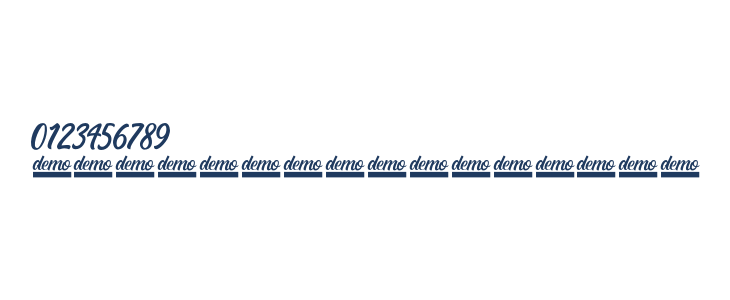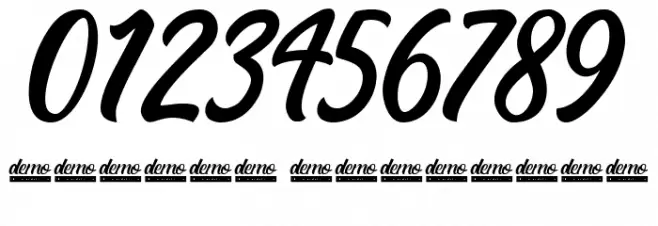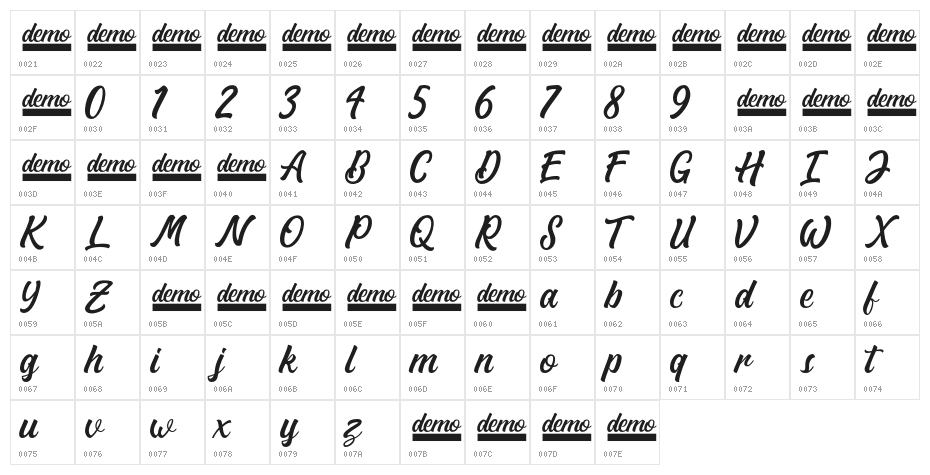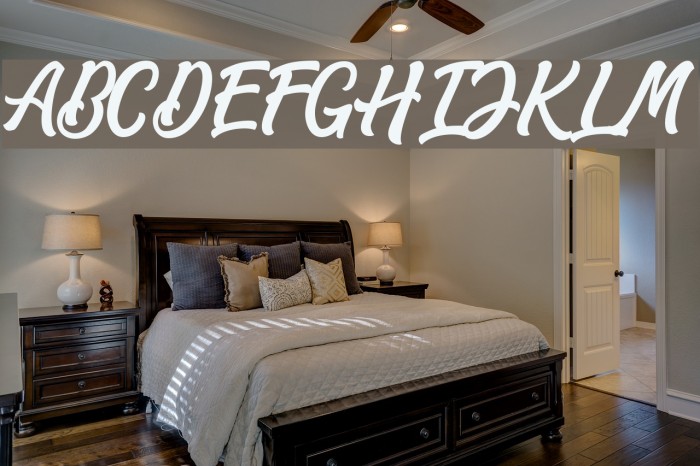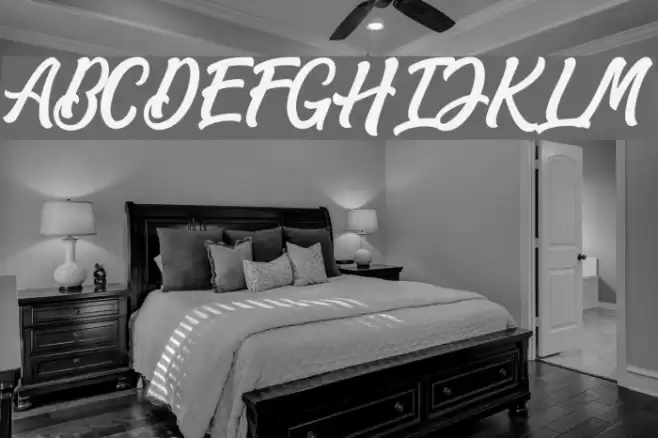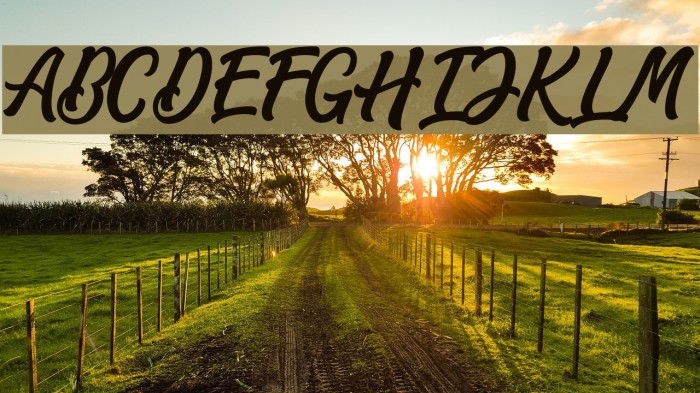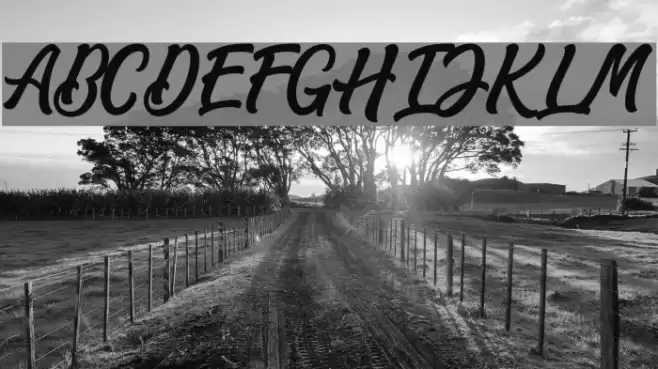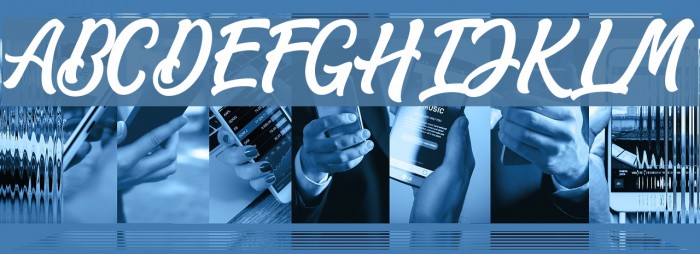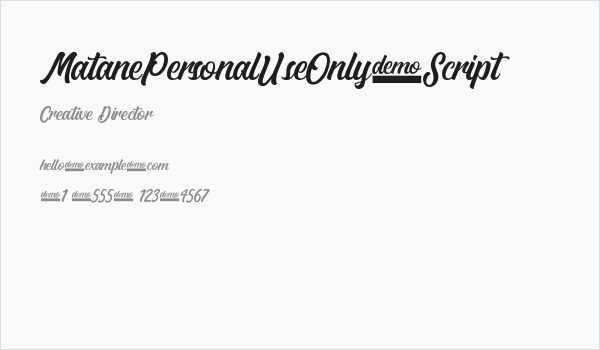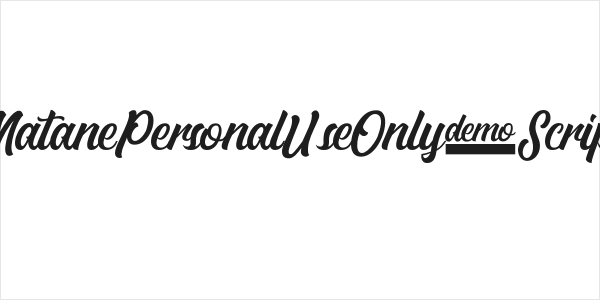
MatanePersonalUseOnly-Script Font
MatanePersonalUseOnly-Script Description
This font features a bold and flowing script style, characterized by its smooth, cursive strokes and elegant curves. The uppercase letters are slightly larger and more pronounced, providing a striking contrast to the more delicate lowercase letters. The numerals maintain the same fluidity, ensuring a cohesive look across all characters. The font's design exudes a sense of sophistication and grace, making it ideal for projects that require a touch of elegance. Its legibility is maintained despite the decorative nature, allowing for versatile use in various design contexts.